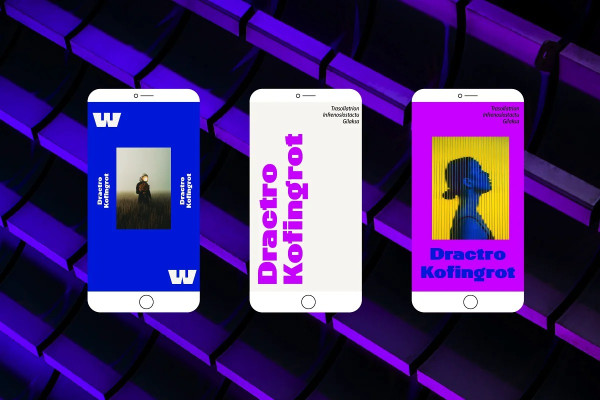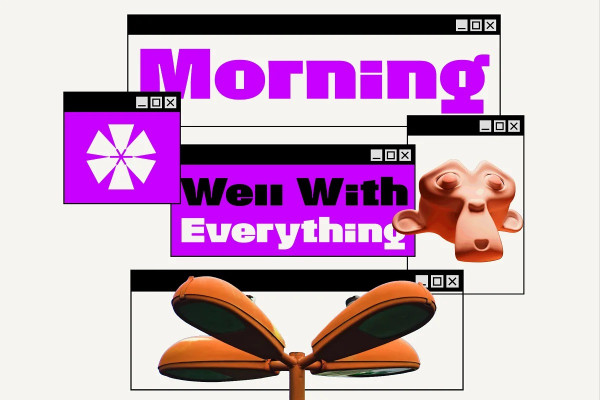
ZT Kofimoya Font
ZT Kofimoya Font is a brand-new font that offers two distinct styles to choose from. The first style features a stiffer sans concept with a somewhat square shape, giving it a modern and assertive appearance. The second style is a normal sans, with a slightly rounded shape, providing a softer and friendlier look. With these two different styles, Kofimoya offers flexibility in design and can be used for a variety of purposes.
Whether you’re working on a project that requires a bold and confident tone or one that calls for a more approachable and inviting feel, Kofimoya has got you covered. Its versatile nature makes it an excellent choice for designers looking to add some variety to their typography toolkit.